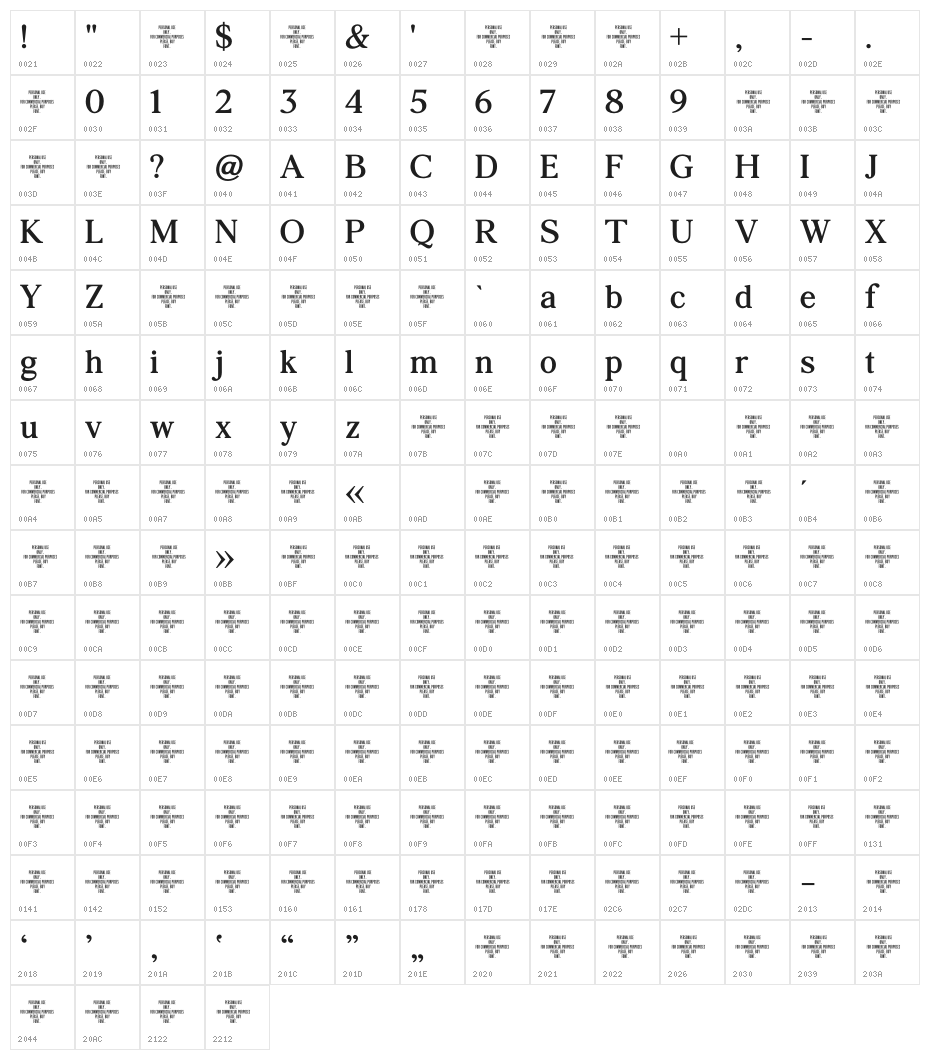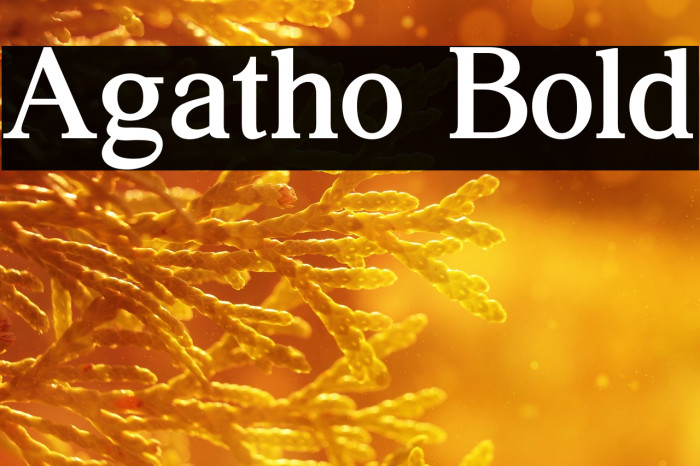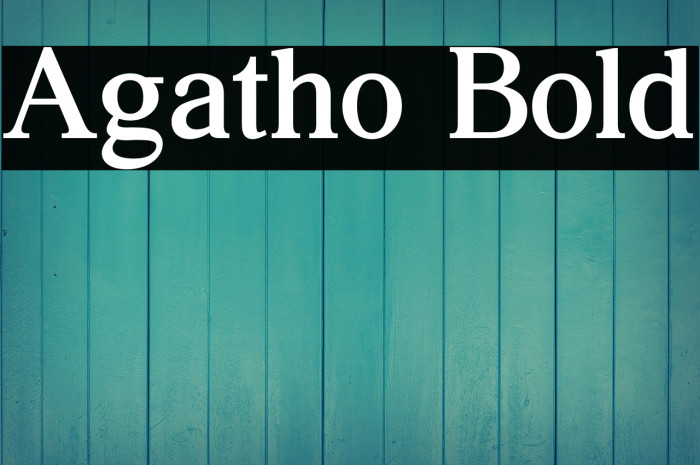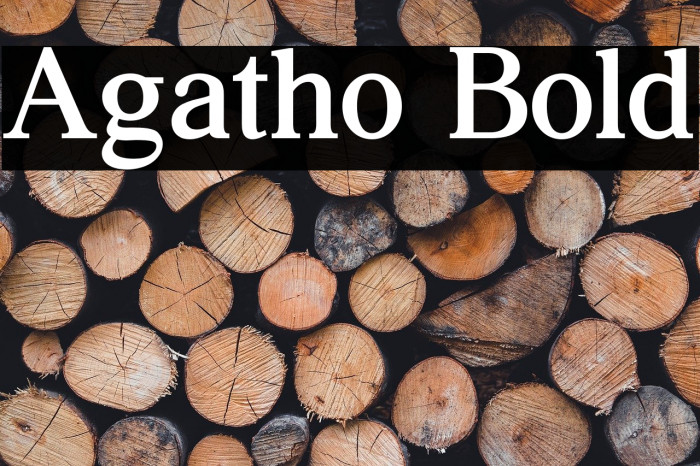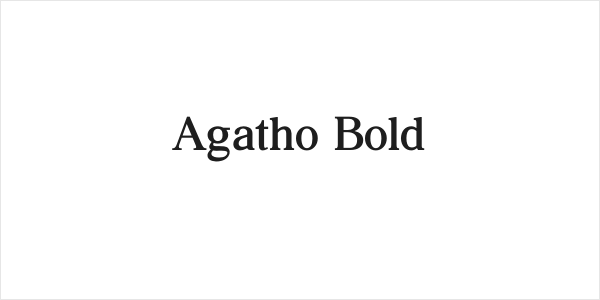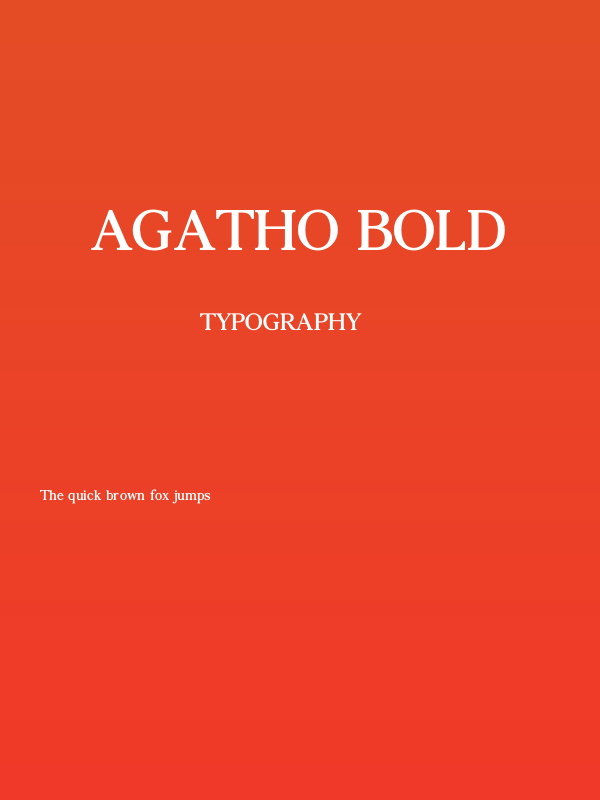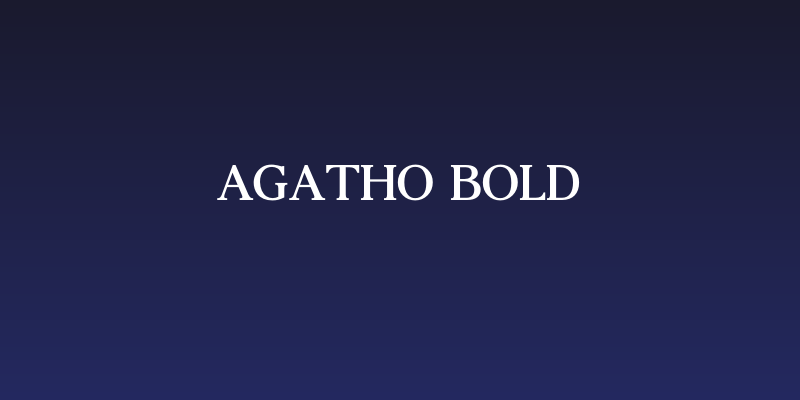
This font exhibits a classic serif style with bold, strong strokes that convey a sense of authority and tradition. The uppercase letters are well-proportioned, with a slight emphasis on verticality, while the lowercase letters maintain a consistent weight, offering a harmonious balance. The numerals are clear and distinct, making them easily readable. Special characters are designed with the same attention to detail, ensuring they integrate seamlessly with the rest of the typeface. The overall appearance is both elegant and robust, suitable for a variety of formal and professional applications.
| Use Case | Headlines, Logos, Editorial design |
| Proposed Projects | Ideal for book covers, editorial design, branding projects, and formal invitations. |